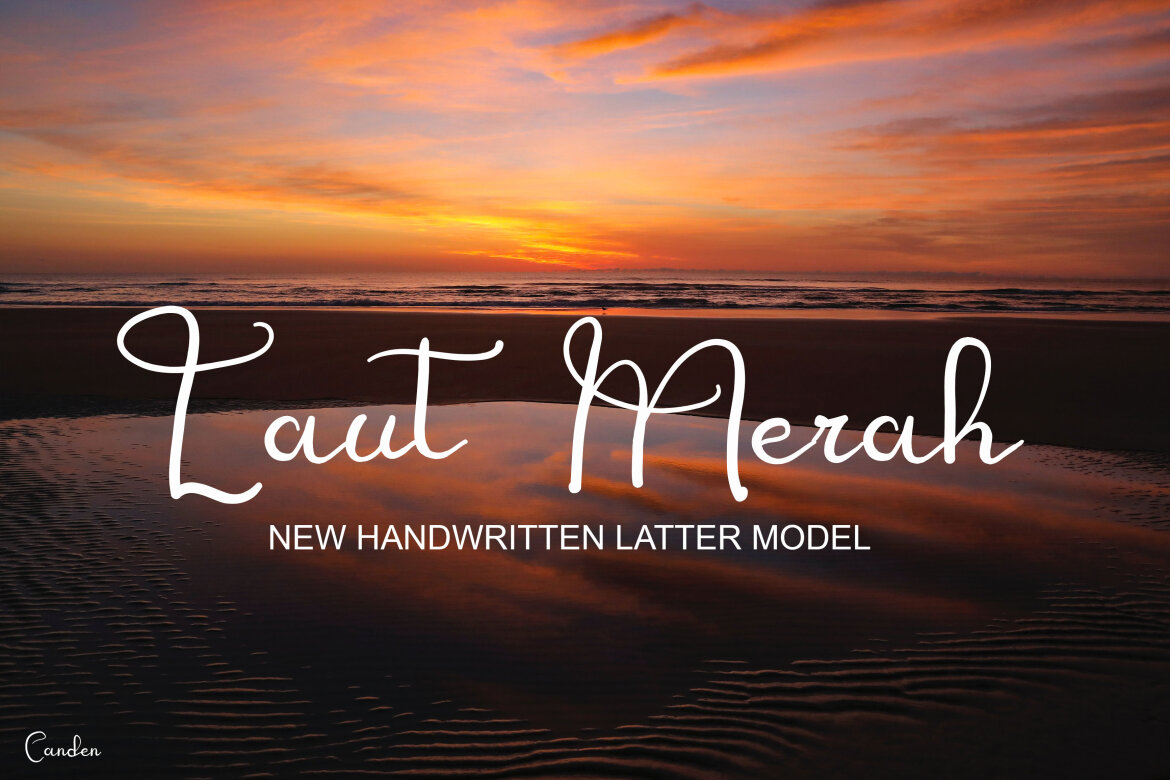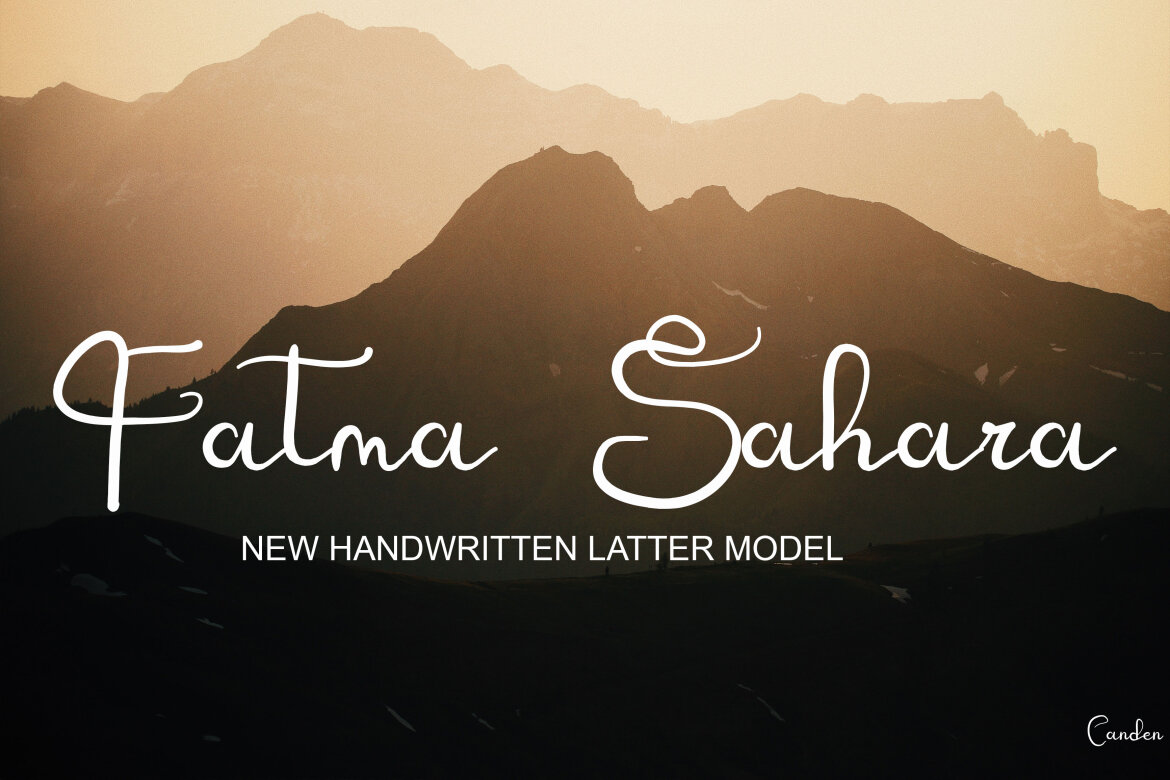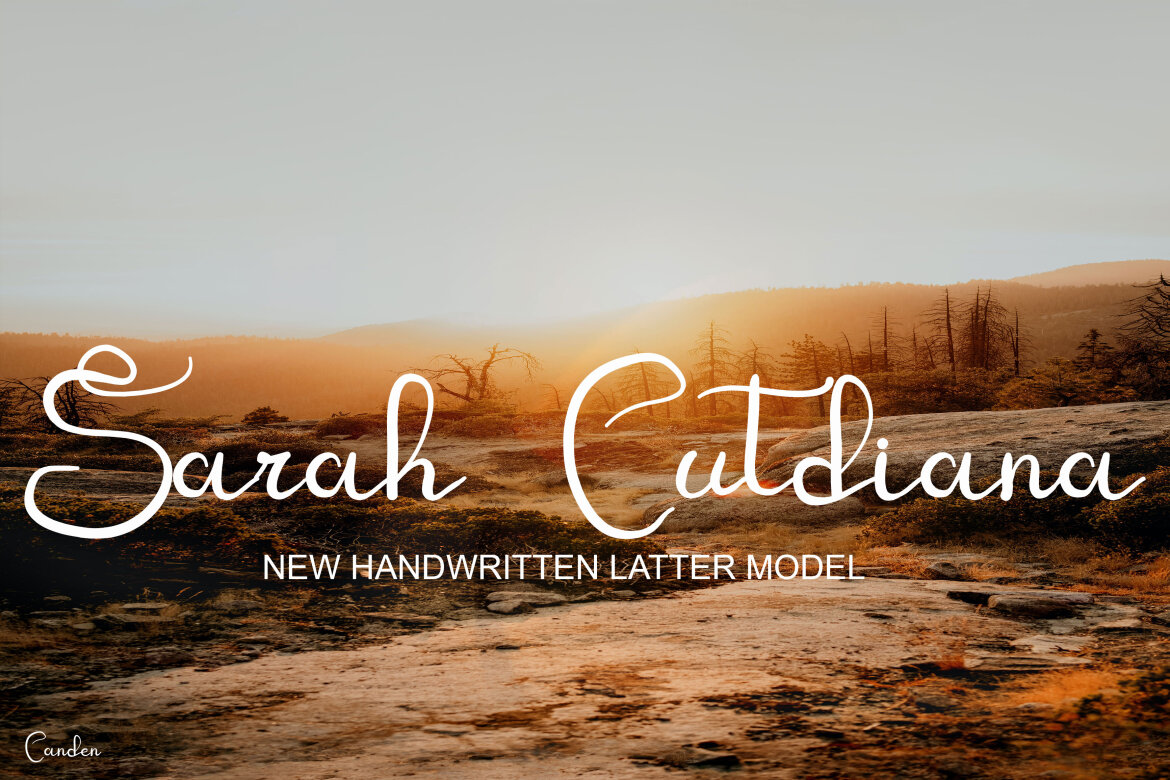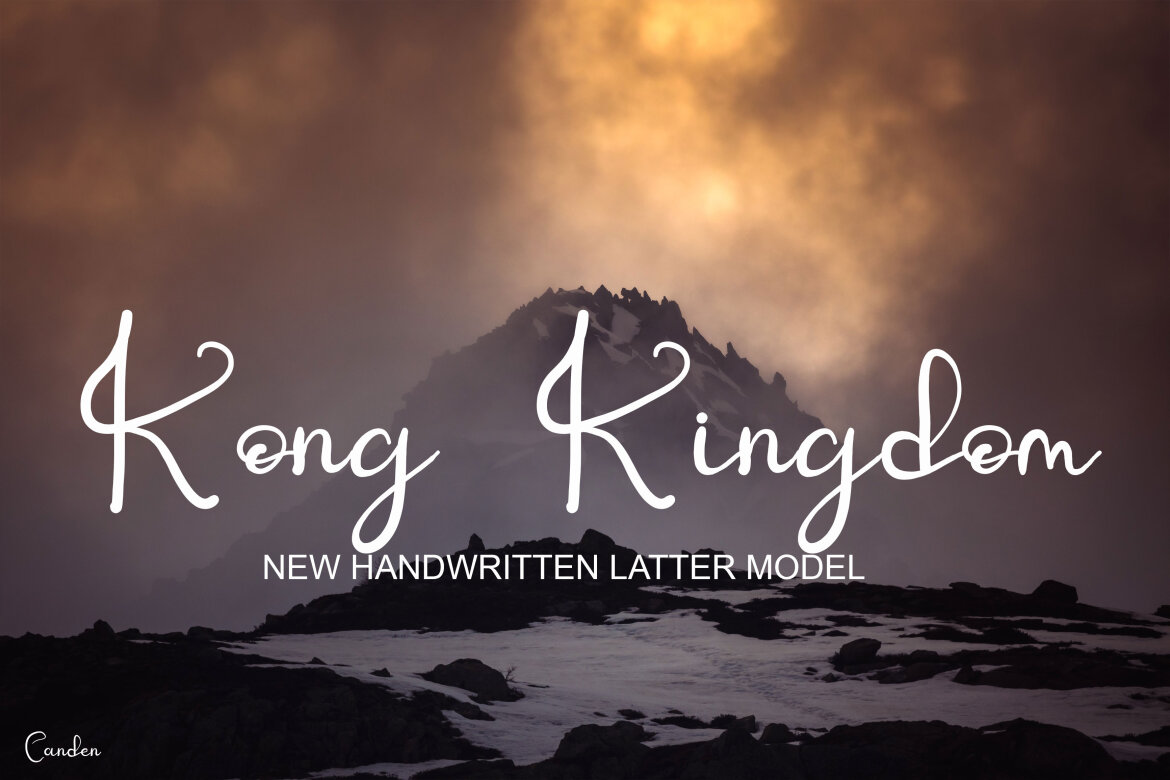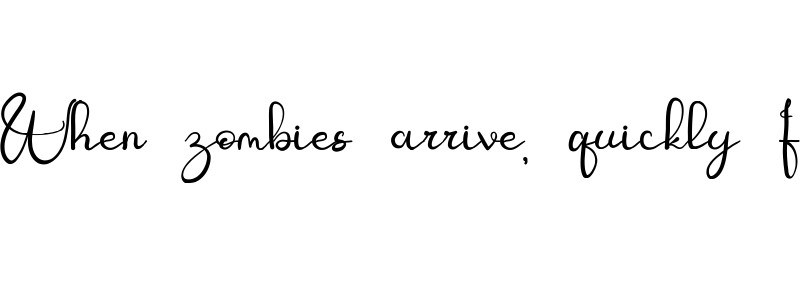
Zumanji Valkalari FREE Font
Zumanji Valkalari CANDEN
• it can be easily adapted to a very large range of projects, such as advertising, titles, blogs, logos, branding, invitations, business cards and more!
• you will feel extraordinary beauty when combining this font with your work.